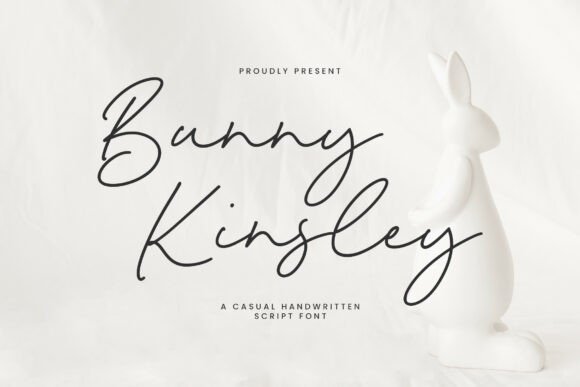
The Bunny Kinsley Font: A Charming Companion for Your Design Projects
I’ll never forget the time I was working on a whimsical wedding invitation project, and my client asked for a font that would capture the playful, carefree essence of their special day. I scoured the internet, trying font after font, but nothing seemed quite right. That was until I stumbled upon the Bunny Kinsley font. With its smooth strokes and natural flow, it instantly added a friendly touch to my design, and I knew I’d found the perfect fit.
As a designer, I’m always on the lookout for fonts that can bring a unique personality to my projects. Here’s what I love about Bunny Kinsley:
- ✨ Playful yet elegant: Bunny Kinsley strikes the perfect balance between whimsy and sophistication, making it ideal for a wide range of design projects.
- ✅ Smooth strokes and natural flow: The font’s fluid lines and curves give it a friendly, approachable feel that’s perfect for invitations, branding, and social media graphics.
- 💬 Versatile: Whether you’re designing a formal invitation or a casual social media post, Bunny Kinsley adapts effortlessly to any style or tone.
Of course, no font is perfect, and Bunny Kinsley has a few minor quirks:
- 🤔 Limited use of uppercase letters: While the font’s uppercase letters are beautiful, they’re not as extensive as some other fonts. However, this doesn’t detract from its overall charm.
- ⚠️ Some glyphs may require manual adjustment: Depending on your design software, you may need to tweak certain glyphs to get the best results. But trust me, it’s worth it.
- Experiment with OpenType features, such as stylistic alternates and glyphs, to add visual interest to your design.
The Story Behind Bunny Kinsley: Designer Inspiration
According to its creator, Bunny Kinsley was inspired by the charming, handwritten signs found in quaint shops and cafes. The designer aimed to capture the warmth and personality of these signs in a font that would bring a smile to users’ faces. With its smooth strokes and natural flow, Bunny Kinsley embodies the carefree spirit of a sunny day spent browsing your favorite local spots.
| Font Name | Bunny Kinsley Font |
| Author | Timur type |
| What type of projects is Bunny Kinsley best suited for? | Bunny Kinsley is perfect for designs that need a friendly, approachable aesthetic, such as invitations, branding, quotes, and social media graphics. |
| Does Bunny Kinsley support OpenType features? | Yes, Bunny Kinsley supports OpenType features, including stylistic alternates, glyphs, and ligatures. |